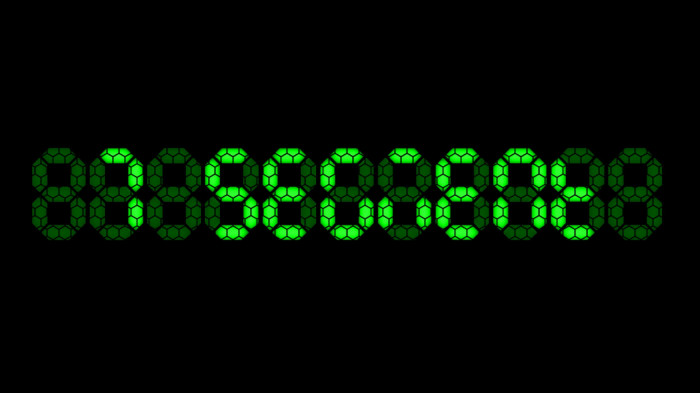
Ah bummer, I really thought the font too had this hexagonal pattern... perhaps a great idea for future font?
Can you add AM & PM?
Anthosegmentby DylanStruct408